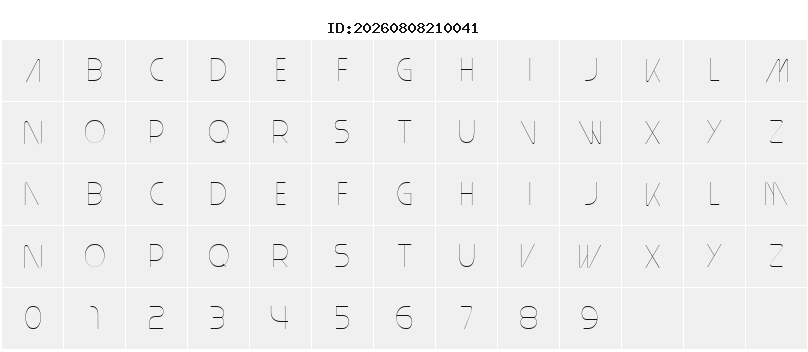
Plain Cred 1978 Preview
• Font Name: Plain Cred 1978
About Plain Cred 1978.ttf
Plain Cred 1978.ttf is a modern, elegant sans-serif font designed for ultimate readability and visual harmony. Perfect for branding, headlines, web design, and print materials.